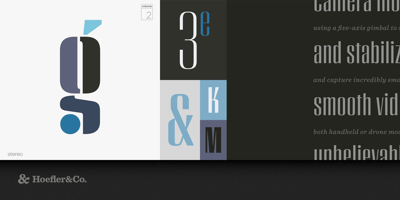
Peristyle Font Family was designed by Jonathan Hoefler and published by Hoefler & Co.. Peristyle contains 18 styles and family package options. A family of stylish condensed typefaces, designed to restore the effortless chic of the high-contrast sans. The Peristyle typeface was designed by Jonathan Hoefler in 2017. A family of tall, high contrast sans serifs, Peristyle nods to the soaring typefaces that grew up around the modern skyscraper such as Imre Reiner’s Corvinus (1935), Morris Fuller Benton’s Empire (1938), and Robert Hunter Middleton’s Radiant (1940). From the desk of the designer: So deeply ingrained is our sense of typographic proportion that even the subtlest changes can stand out to a reader. A typeface’s weight is either regular or extreme; the size of its lowercase either goes unnoticed, or appears delicate and precious (if it’s especially small) or gentle and youthful (if it’s especially large.) Contrast is one of typography’s more curious characteristics: the relationship between thick and thin strokes, a distant vestige of calligraphy, is present in even the most mechanical and geometric typefaces. Amplifying an alphabet’s contrast turns up the drama, making it feel strange and exotic, a device that’s long been used by novelty typefaces. There are high-contrast faces that buzz with high-tech sparkle, using unexpected geometries to look futuristic, and others that feel old-fashioned, employing all the details of thirties Art Deco or sixties funk. But what if a typeface worked to avoid looking forward or backward, and instead summoned all the energy of contrasting darkness and light to create a typeface for today? Peristyle is a family that dodges eccentricity, to find drama, elegance, and style.